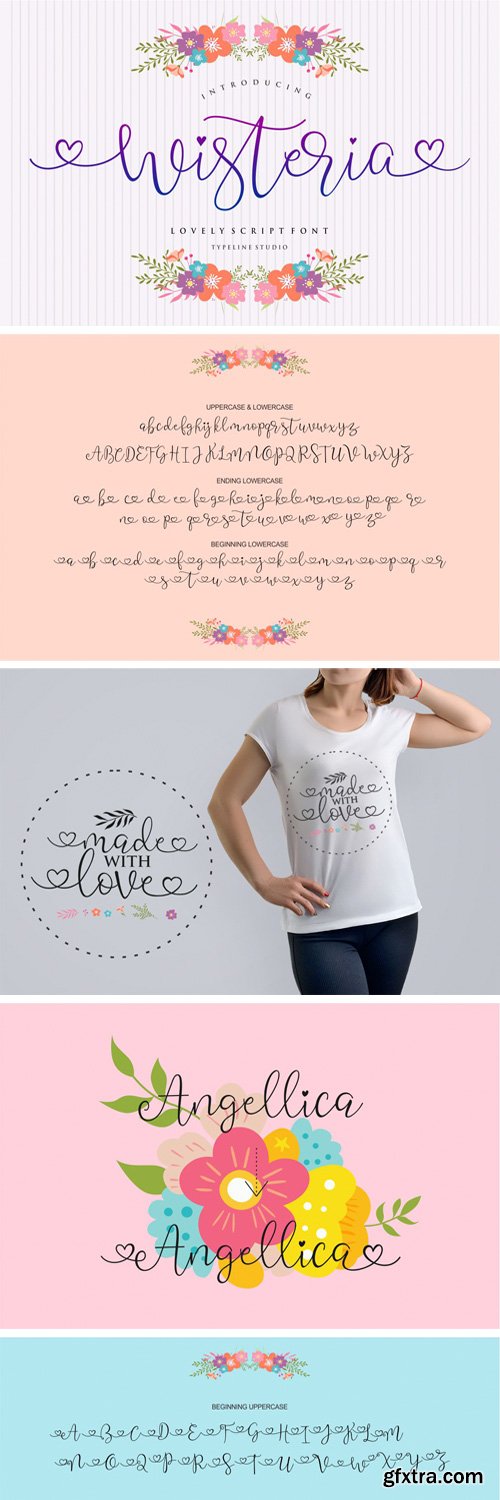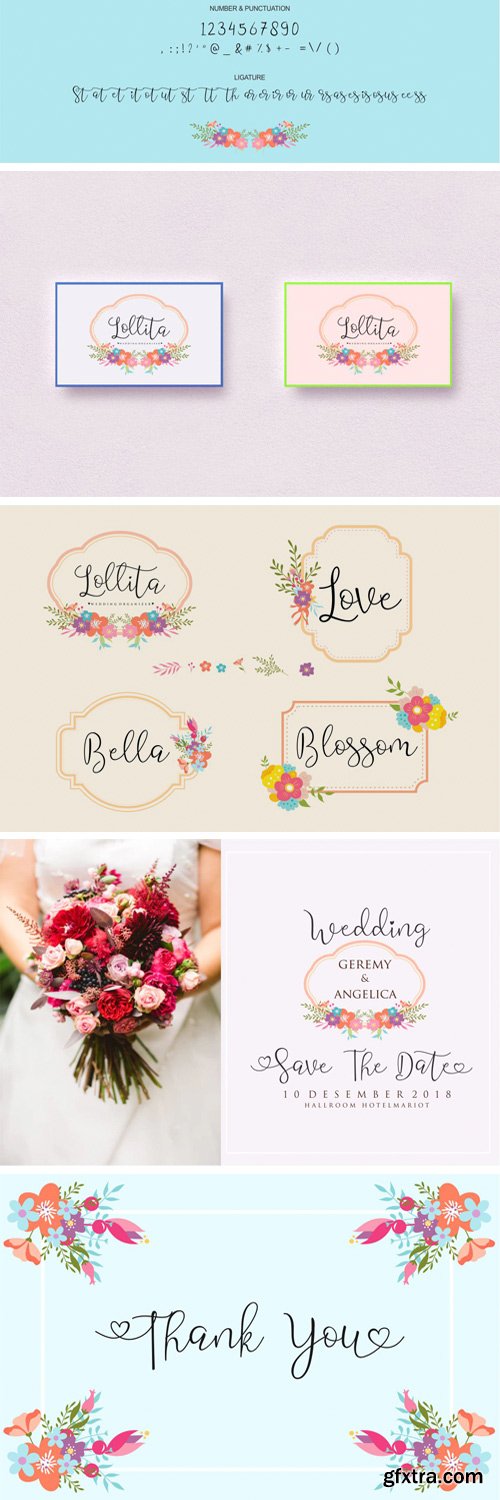
Wisteria Lovely Script Font 50% Off Intro SALEWisteria is a handwritten font made with love, a character that is very beautiful and varied, has a decorative impression of classic love with a modern touch, is designed with a full romantic feeling with the selection of brushes that are appropriate so as to present a stylish character font. Wisteria is interesting as a smooth, clean, feminine, sensual, glamorous, simple and very readable typeface, because there are a lot of ligature, initial and final letters that form the heart.
I also offer a number of alternatives such as the beginning of lowercase letters at the end of lowercase letters and alternate uppercase letters in a unique style, for many letters.wisteria is Modern style is perfect to be applied in various formal forms such as invitations, labels, restaurant menus, logos, fashion, makeup, stationery, novels, magazines, books, greeting / wedding cards, packaging, labels, or any type of advertising purpose. Wisteria has 400+ glyphs and 150 alternative characters. With the OpenType feature with an alternative style, the ending and elegant ligatures. The OpenType feature does not function automatically, but you can access it manually and to combine this Glyph variation.